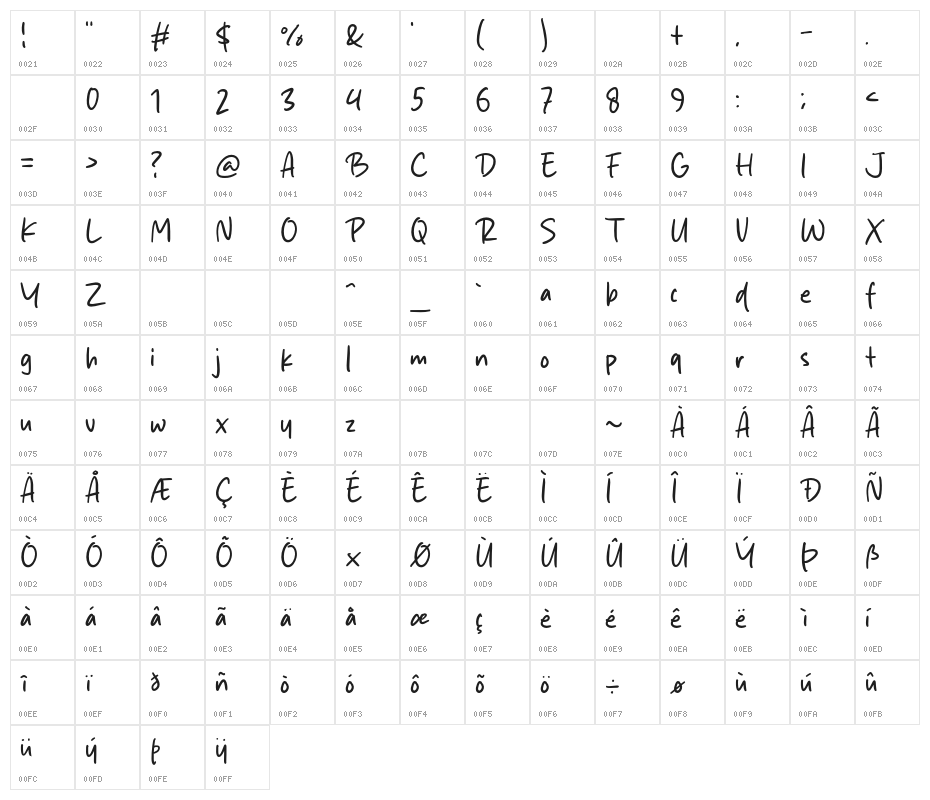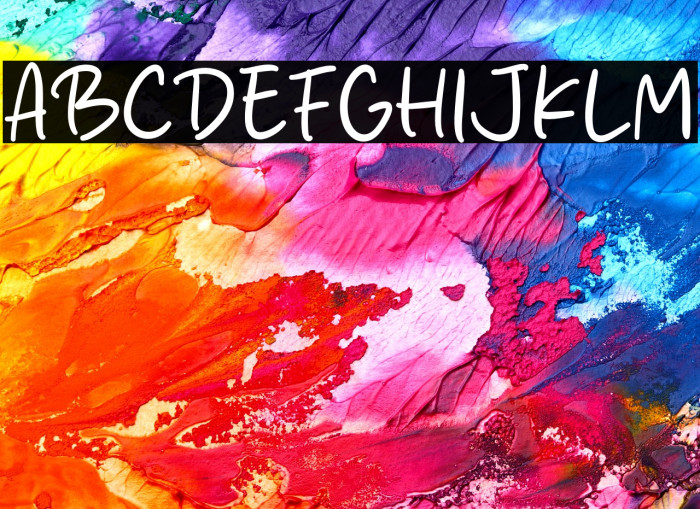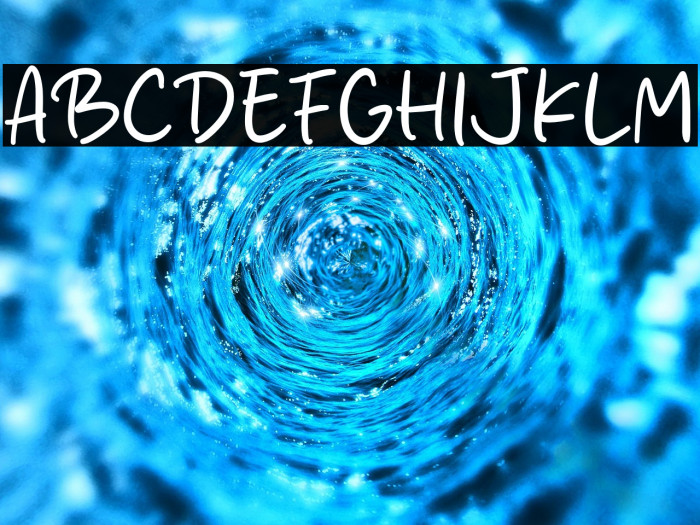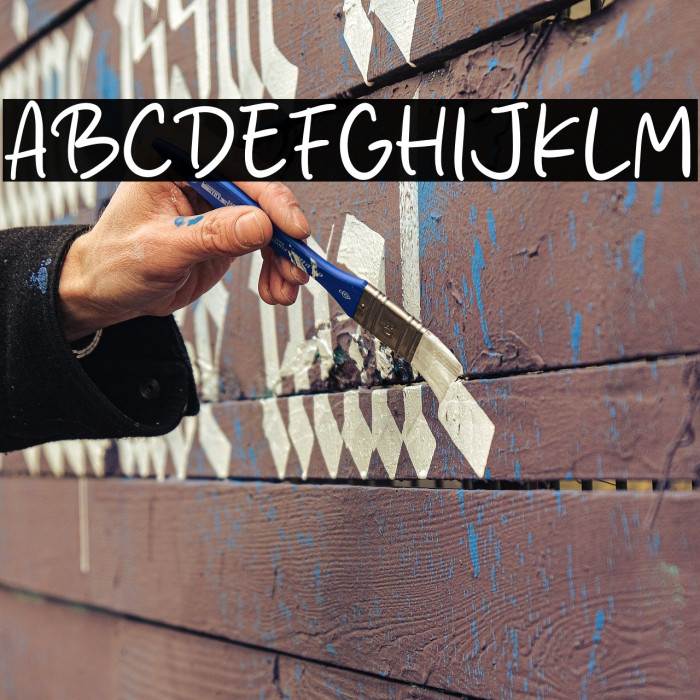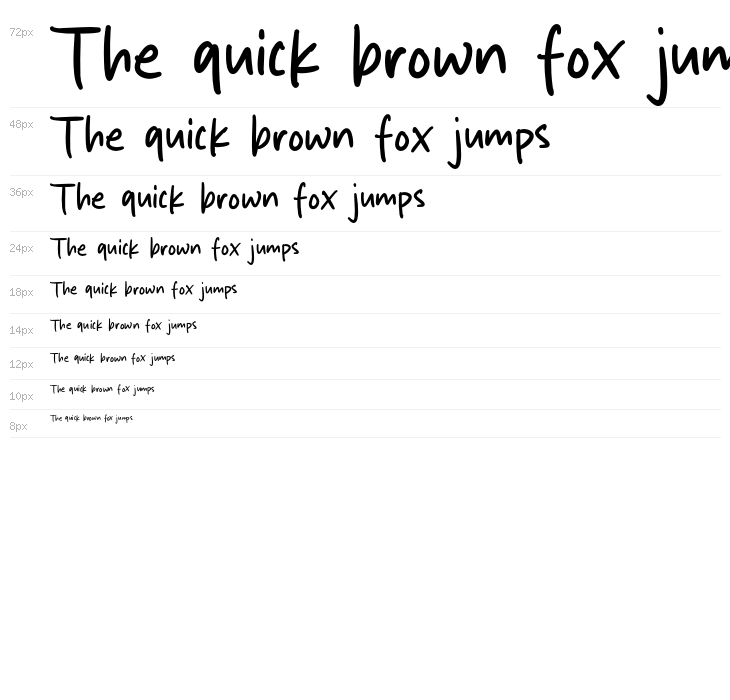
Rafaela Smith Font
Rafaela Smith Description
A casual, handwritten font with a playful and informal style, featuring smooth curves and a friendly appearance.
| Use Case | Logos, Headlines, Informal text |
| Proposed Projects | Greeting cards, personal branding, informal invitations. |